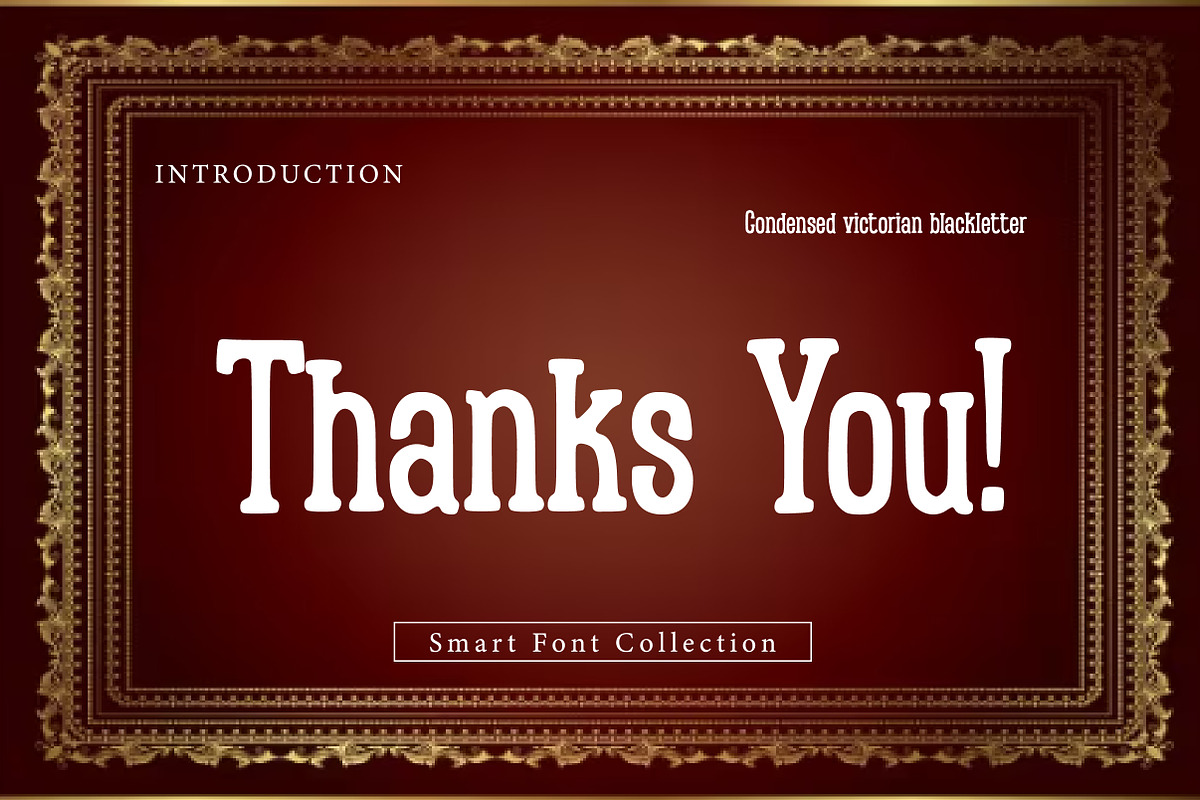
Condensed victorian blackletter
Condensed Victorian Blackletter is a narrow and elegant display typeface that combines traditional blackletter foundations with refined Victorian-era styling. Its tall proportions, delicate curves, and controlled ornamentation give it a sophisticated antique character while maintaining strong visual impact. This font is ideal for headlines, posters, logos, editorial design, book covers, and branding projects that seek a vintage Victorian mood with a gothic edge.